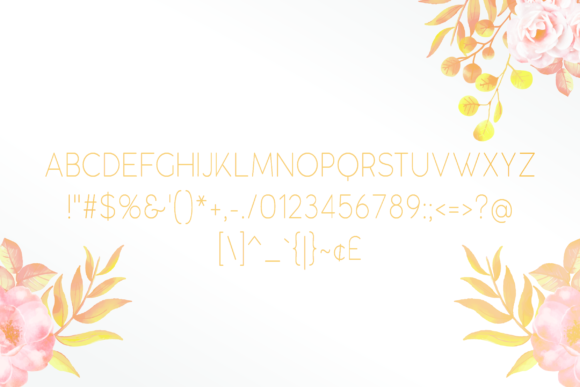
The Perfect Font for Elevating Your Designs
Have you ever stared at a blank canvas, feeling like the perfect font is just out of reach? You envision a sleek, modern design, but the words just won’t come together. That’s where Klamoure Thin Font comes in – a game-changing sans serif typeface that will breathe new life into your projects.
Designed to evoke elegance and sophistication, Klamoure Thin Font is the perfect addition to any design portfolio. Whether you’re creating a branding campaign, a website, or a print ad, this versatile font will elevate your work to new heights. With its unique charm and refined aesthetic, Klamoure Thin Font is a valuable asset for designers looking to make a lasting impression.
- Unique Characteristics:
- Ultra-lightweight design with high x-height
- Optimized for digital displays and online use
- Perfect for creating clean and modern typography
Klamoure Thin Font Review
When I first laid eyes on the Klamoure Thin Font, I was immediately drawn in by its sleek, modern aesthetic. ✨ The font’s clean lines and minimalist design make it perfect for any project that requires a touch of sophistication. Whether you’re designing a logo, business card, or website, Klamoure Thin is sure to impress.
One of the standout features of this font is its versatility. ✨ It’s equally at home in both digital and print projects, and its subtle flair makes it a great choice for adding a touch of personality to your designs. I’ve also been impressed by the font’s excellent legibility, even at smaller font sizes.
While the Klamoure Thin Font has a lot going for it, there are a few limitations that are worth noting. ⚠️ One of the main drawbacks is the font’s relatively limited character set, which may make it less suitable for projects that require a wide range of special characters or languages.
Overall, I’m thoroughly impressed with the Klamoure Thin Font. ✨ While it may have a few limitations, its unique design and versatility make it a great addition to any designer’s toolkit. If you’re looking for a modern, sophisticated font that will elevate your designs, I highly recommend giving Klamoure Thin a try.
- Modern, minimalist design
- Excellent legibility, even at smaller font sizes
- Perfect for digital and print projects
- Unique flair adds personality to designs
Getting the Most Out of Klamoure Thin Font
To get the most out of Klamoure Thin Font, use it in combination with other fonts to create a visually appealing contrast. Pair it with a bold or sans-serif font to create a striking visual effect.
Klamoure Thin Font is ideal for:
- Editorial and publishing content
Alternatives to Klamoure Thin Font
Klamoure Thin Font is a modern sans-serif font, known for its sleek and minimalist design. Here are some alternatives for designers:
1. Montserrat Thin
Montserrat Thin is a geometric sans-serif font designed by Julieta Ulanovsky. It’s ideal for use in headings and titles due to its clean and modern design. Montserrat Thin is similar to Klamoure Thin Font in its sleekness, but it has a slightly more geometric feel. Use it for projects that require a touch of sophistication and elegance.
2. Lato Thin
Lato Thin is a sans-serif font designed by Łukasz Dziedzic. It’s a highly versatile font that works well for both body and heading text. Lato Thin is similar to Klamoure Thin Font in its simplicity, but it has a slightly more rounded feel. Use it for projects that require a clean and approachable design.
3. Open Sans Thin
Open Sans Thin is a sans-serif font designed by Steve Matteson. It’s a highly legible font that works well for body text. Open Sans Thin is similar to Klamoure Thin Font in its simplicity, but it has a slightly more neutral feel. Use it for projects that require a clean and readable design.